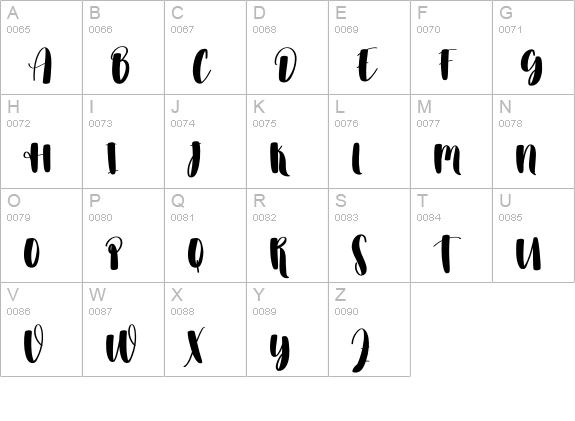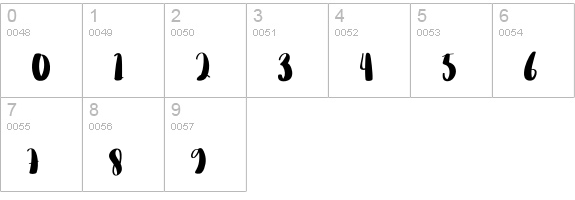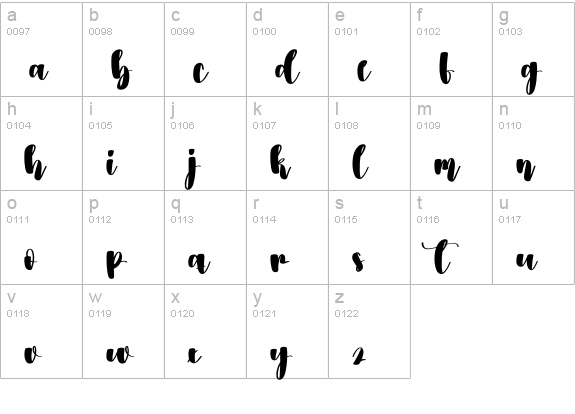
Autography Font Details
Autography is a free for personal use font in the Script > Handwritten category, designed by scratchones. It has been downloaded 21 times and is available for Windows, Mac and Linux.
Introducing Autography – a stylish and elegant font that exudes sophistication and charm. With its unique blend of modern and classic elements, Autography is perfect for adding a touch of luxury to your projects. The sleek lines and graceful curves of this font make it ideal for a wide range of designs, from branding and packaging to invitations and social media graphics.